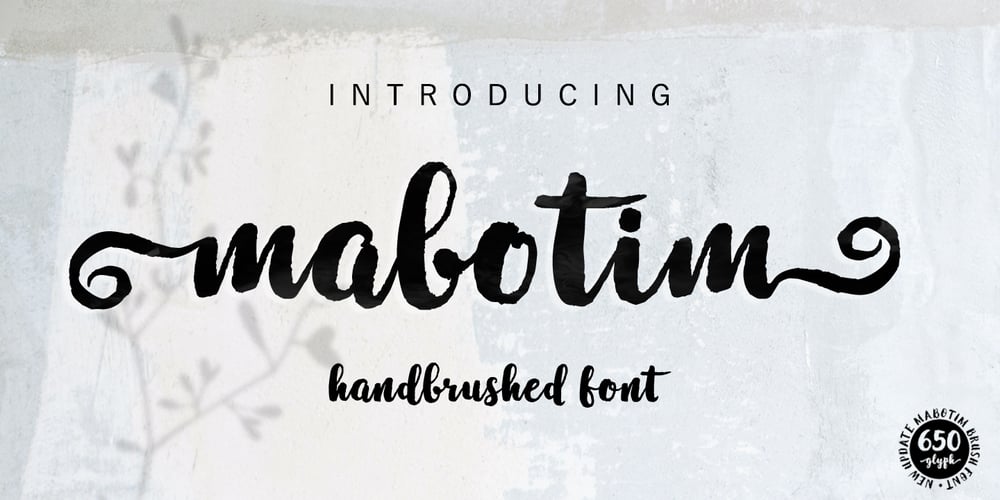
Mabotim Brush Font Family was designed by Barmawi and published by Creative Lafont. Mabotim Brush contains 1 styles and family package options. Mabotim Brush Font painted, Fun, modern, multi-purpose and operated bold letters combine letters brushing operates with a natural style. Suitable for review, packaging, titles, posters, t-shirts, logos, quotes, invitation, apparel, wedding, advertising, image overlays, greeting cards and web banners, etc.Get substitute alternate glyphs and characters beginning and end of interest to the composition of your design.Comes with Uppercase and lowercase characters, large set of punctuation glyphs, numerals, supports international languages, stylistic alternates for several key lower case characters And this Font has given PUA unicode (specially coded fonts).Letters replacement can be accessed using a program like Adobe Illustrator and Adobe InDesign OpenType Smart. Adobe Photoshop Corel draw X version, and Microsoft Word.I had a lot of fun designing this font. I hope you have even more fun using it. If you have any questions, please don’t hesitate to ask.Thank You for Purchase!